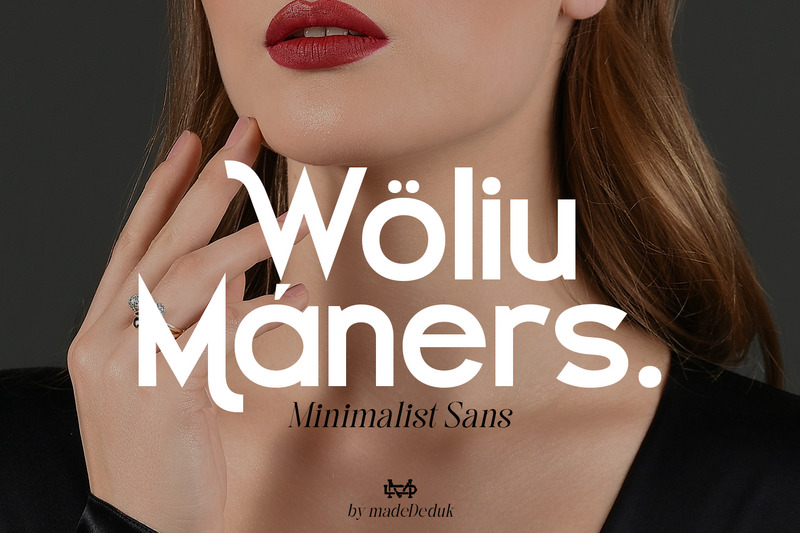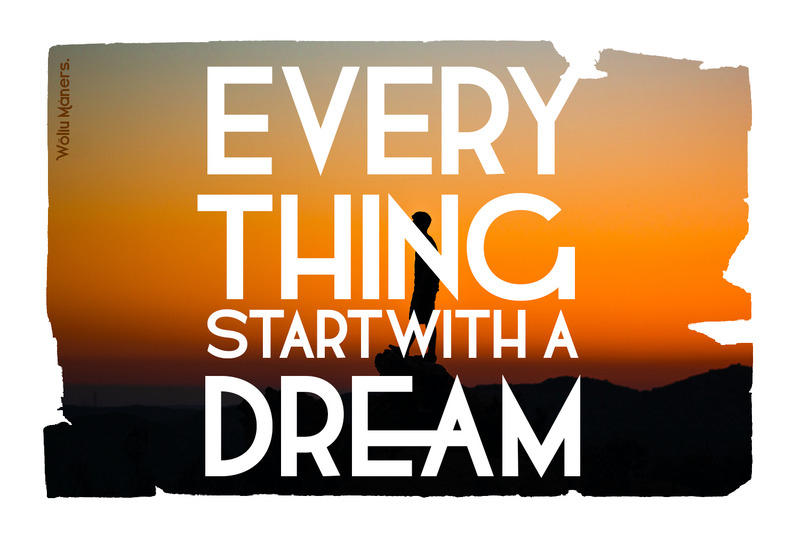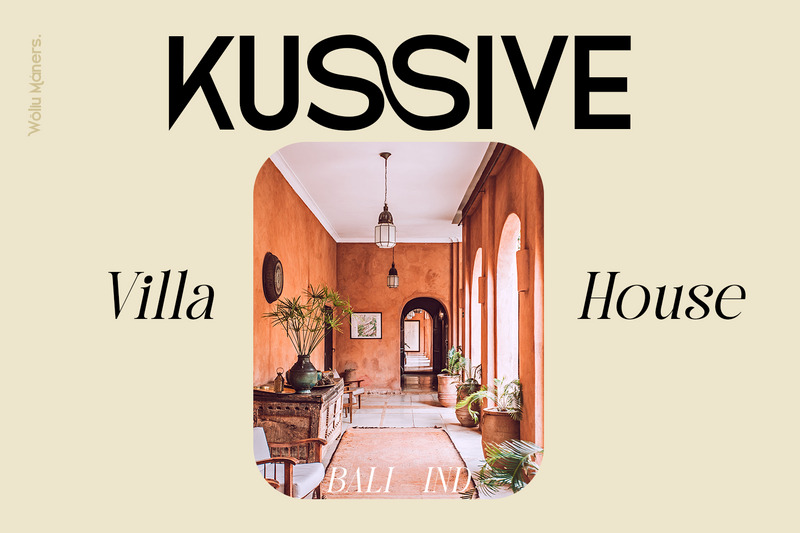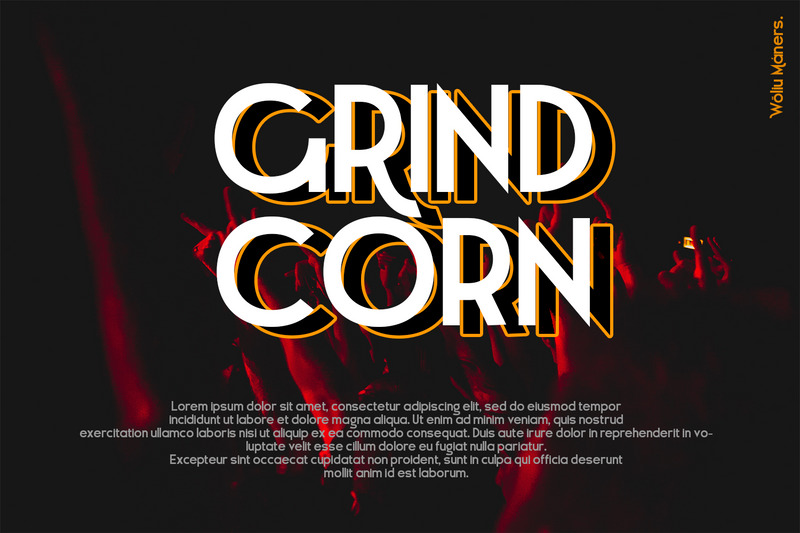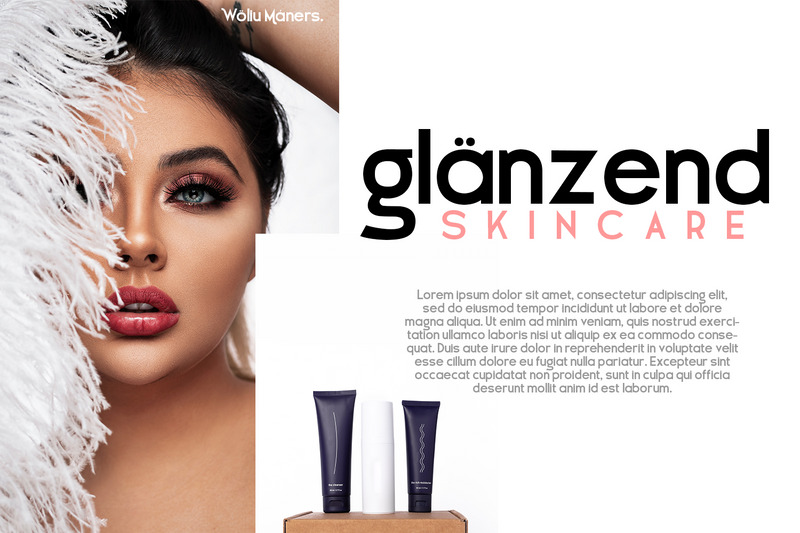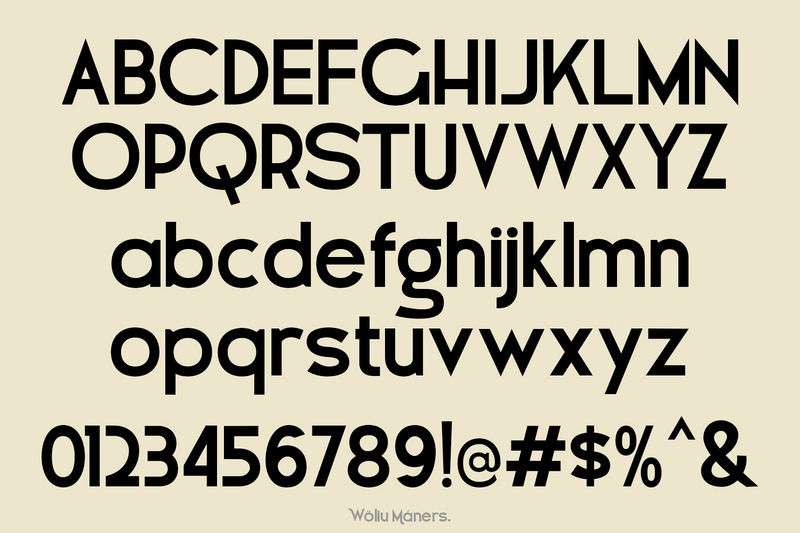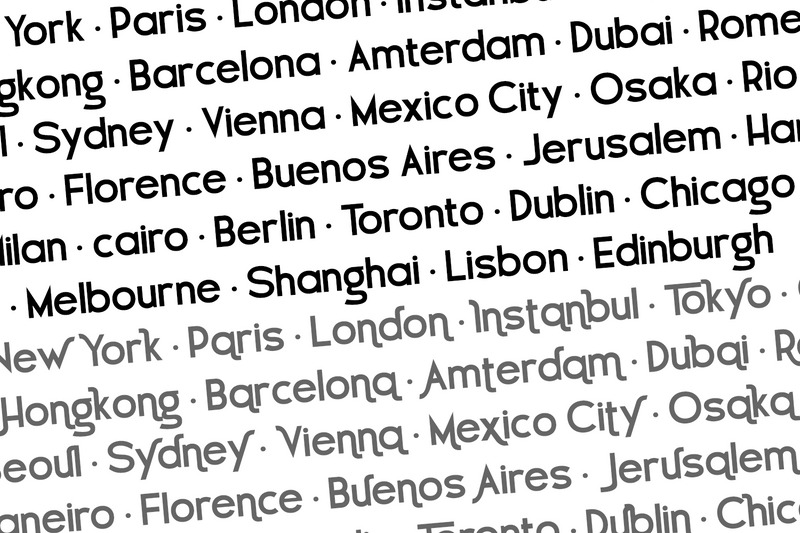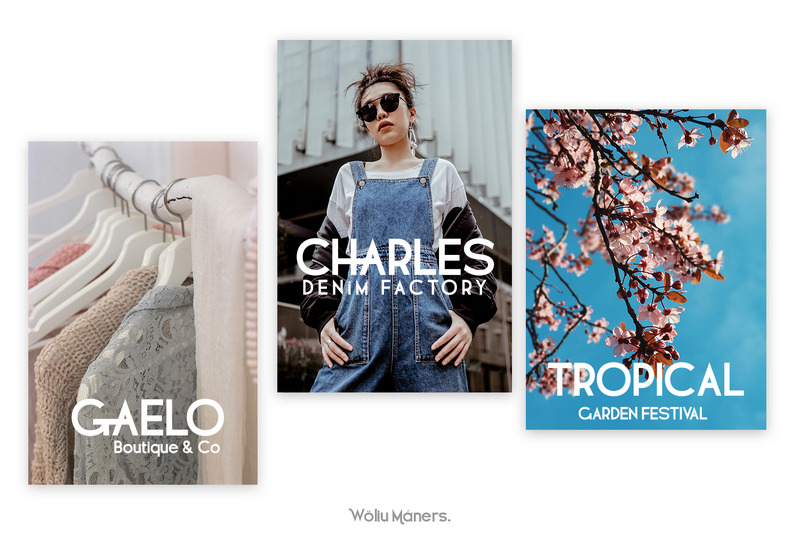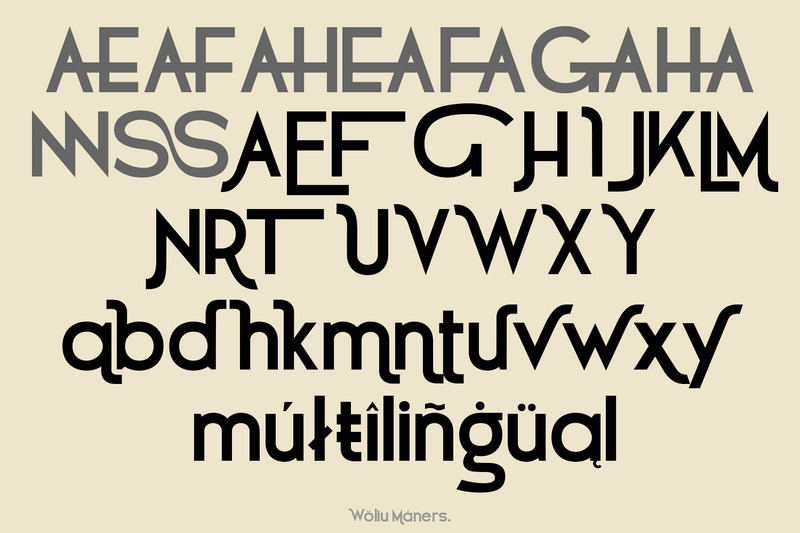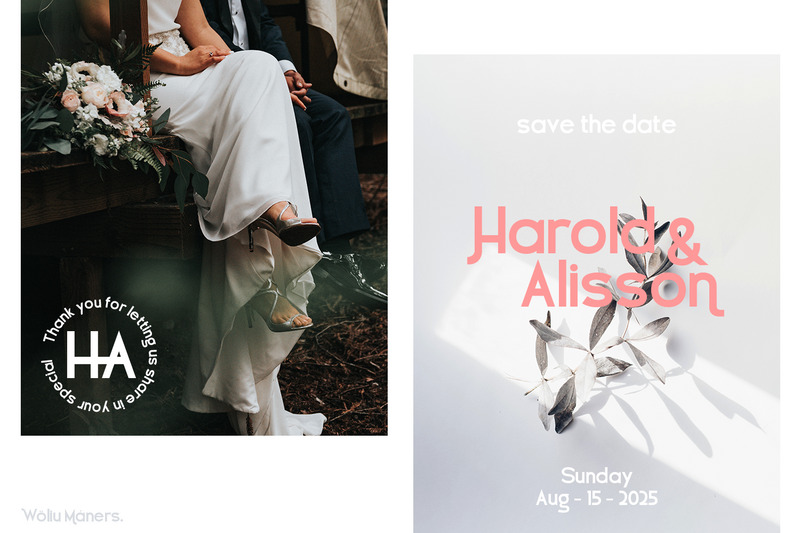
Woliu Maners - Display Sans
Woliu Maners is a modern sans, use this font for any branding, product packaging, invitation, fashion, label, poster, logo etc.
Feature
•  Uppercase & Lowercase
•  Number & Symbol
•  International Glyphs
•  Multilingual support
•  Alternative
•  Ligature